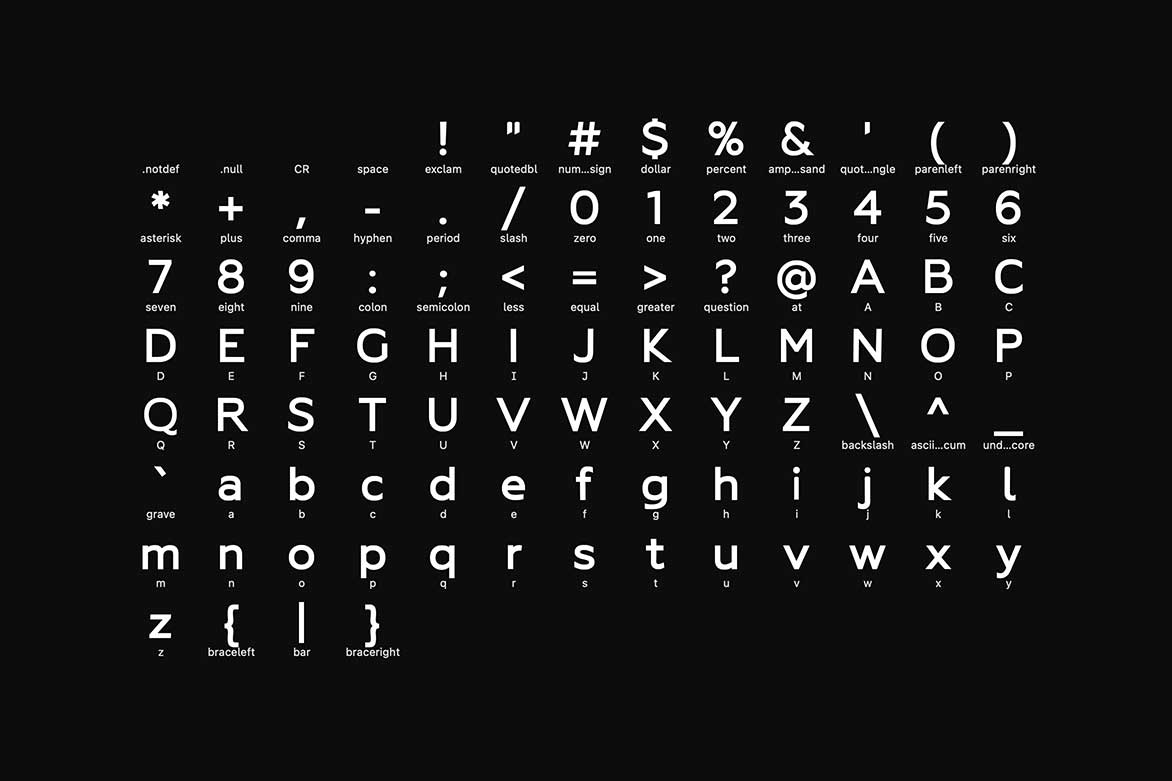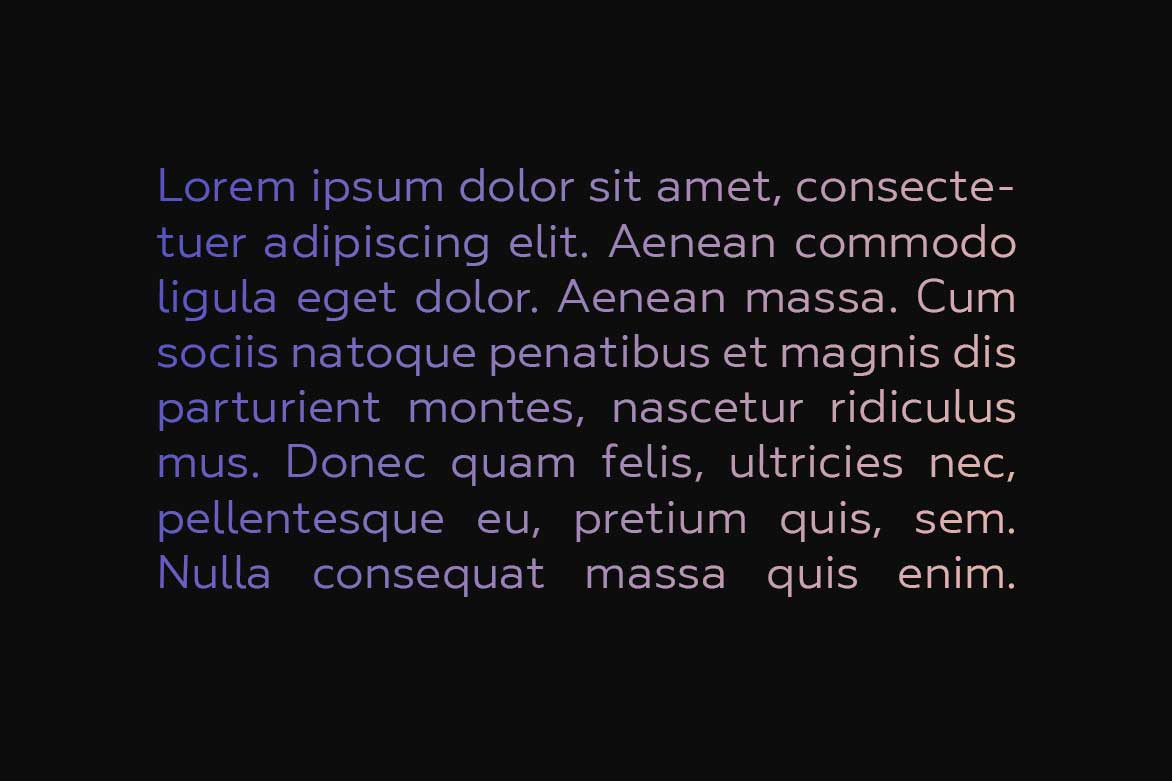
Grover Sans is a modern and Minimal Sans Serif typeface. Grover Sans can keep minimalism at its best and is a perfect choice for creative and classic typography designs. The pack includes OTF, TTF, and Web Fonts